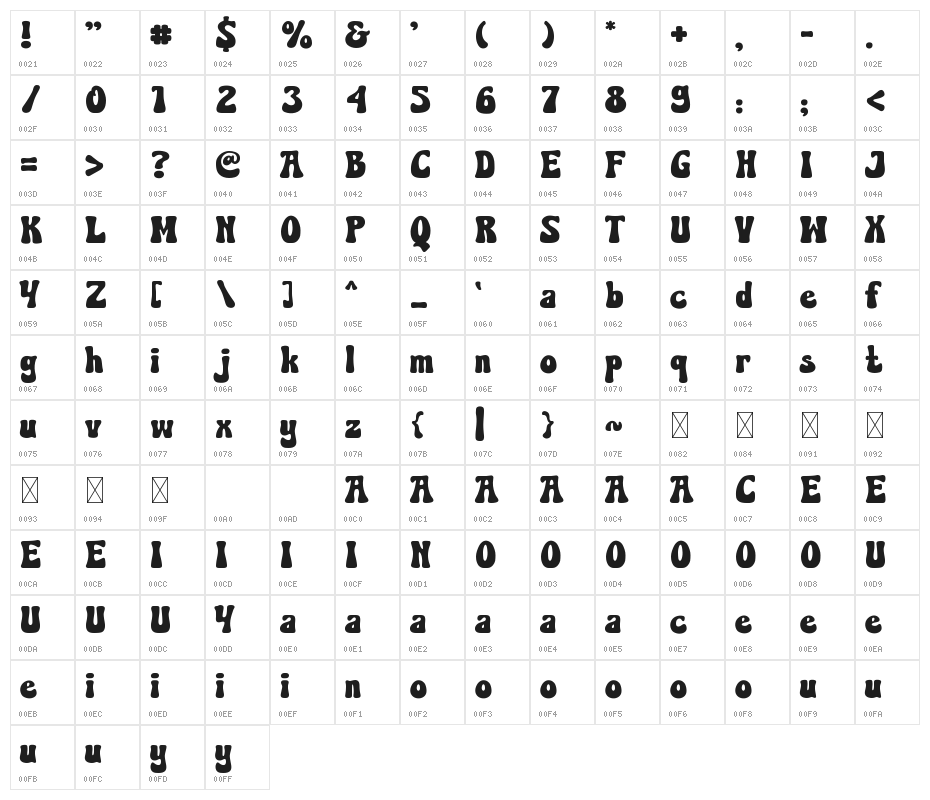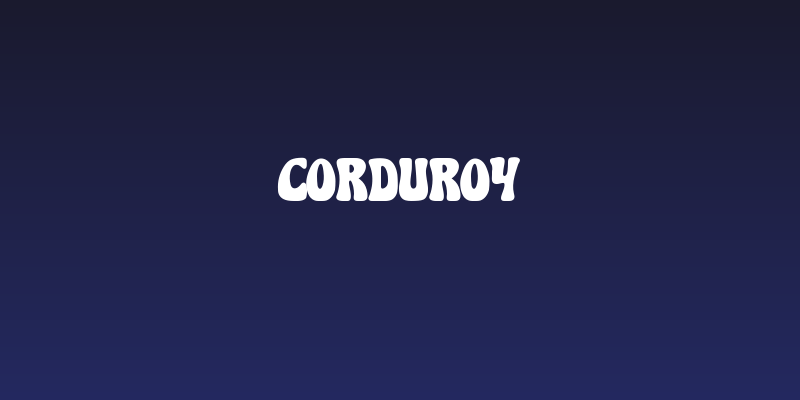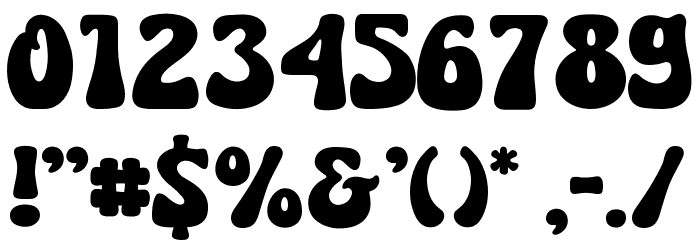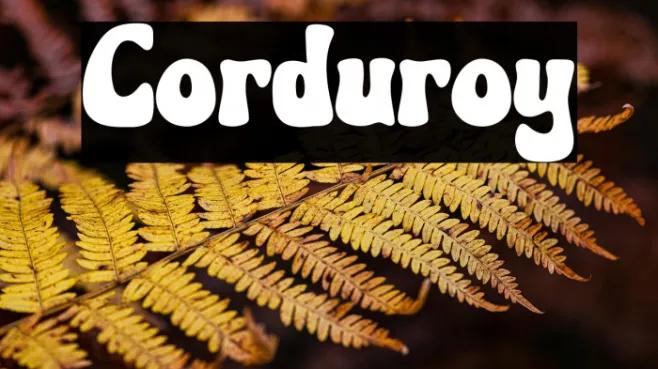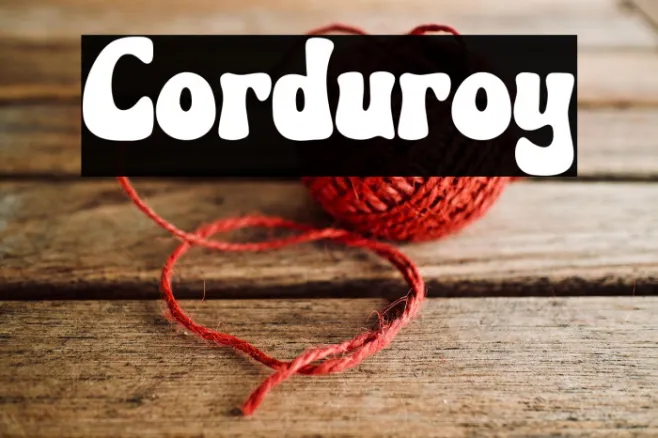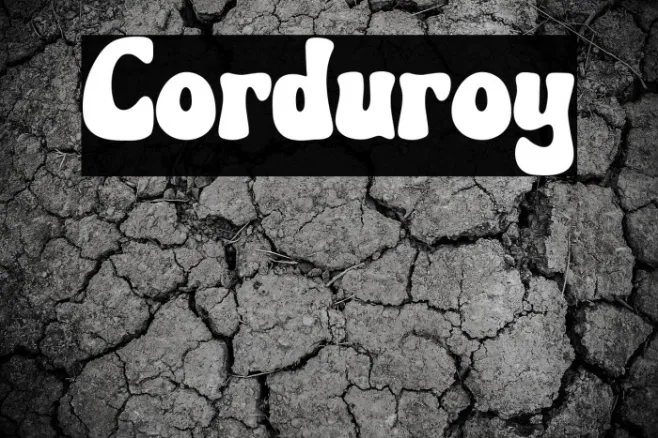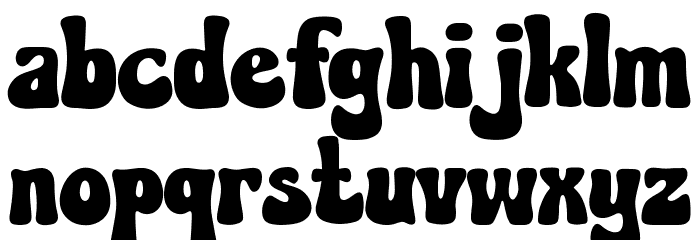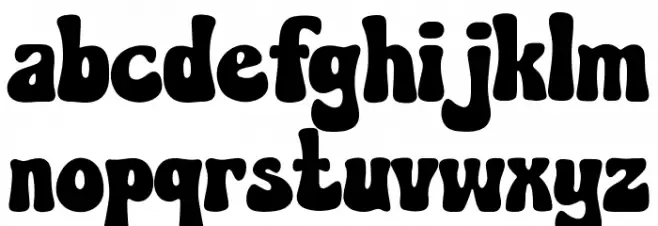
Corduroy Font
Corduroy Description
This font features a bold and playful design with rounded edges and a bubbly appearance. The characters are thick and have a uniform stroke width, giving them a strong presence. The uppercase and lowercase letters maintain a consistent style, with the lowercase letters being slightly smaller but equally bold. The numbers and special characters follow the same design principles, ensuring a cohesive look across all elements. The font's whimsical and fun nature makes it ideal for projects that require a lively and engaging typeface.
| Proposed Projects | Ideal for children's books, playful branding, posters, and event invitations. |